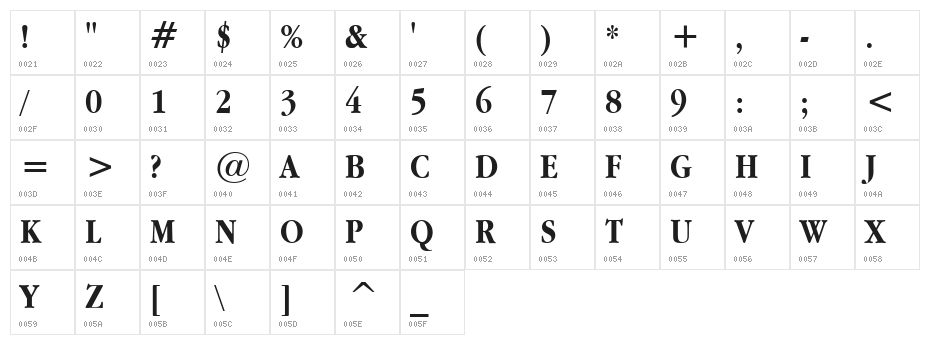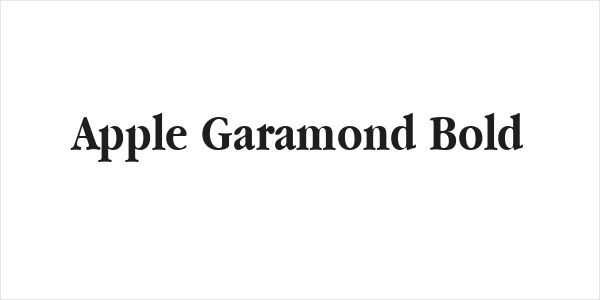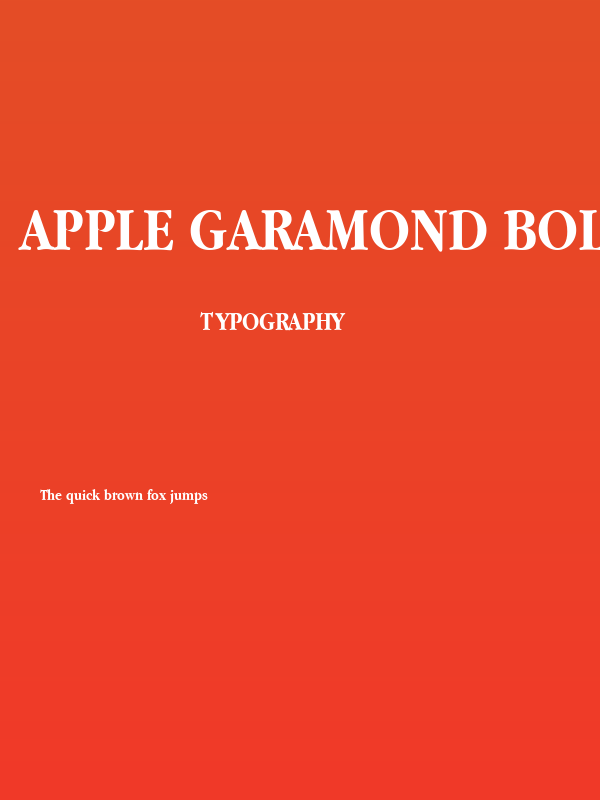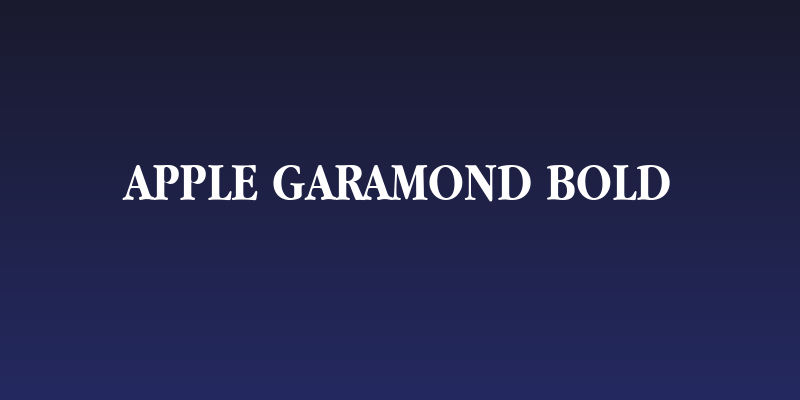
Apple Garamond Bold Font
Apple Garamond Bold Description
This font is a classic serif typeface characterized by its elegant and timeless design. The letters feature a moderate contrast between thick and thin strokes, giving it a refined and sophisticated appearance. The serifs are well-defined and slightly curved, adding a touch of grace to the overall structure. The uppercase letters are bold and commanding, while the lowercase letters maintain a harmonious balance with their slightly rounded forms. The numerals are clear and legible, making them suitable for various applications. The special characters are distinct and well-integrated into the font's style, ensuring consistency across all glyphs.